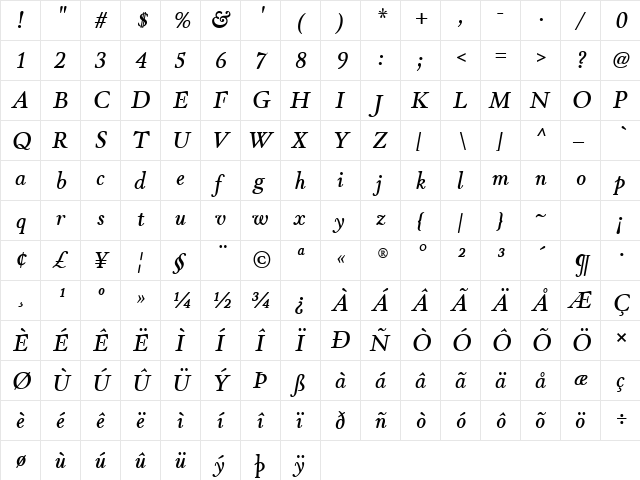
Winthorpe SemiBold Italic
Design Context for Winthorpe Typeface
Winthorpe is a composed and adaptable typeface that performs quietly and consistently across a wide range of design contexts. The dynamic lean of this cut emphasises speed and emphasis in any layout. Its bold stroke weight gives it real presence on the page.
Pro Tip: Try Winthorpe for annotation and caption copy alongside an upright companion — the contrast in angle creates a dynamic but ordered typographic system.